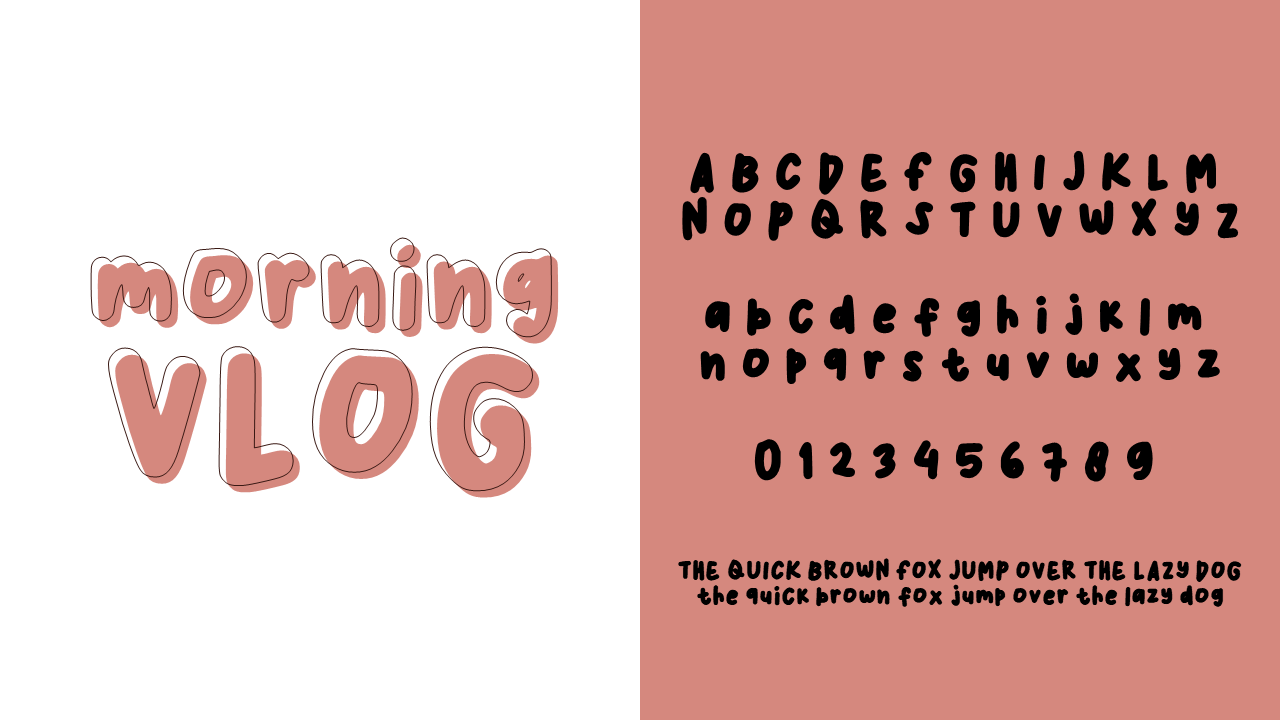
Hylie Font
Hylie Display FontHylie Font preview image 2
Hylie Display Font
This is a cute font will suit any cute design and element. Perfect for branding projects, Logo design, Clothing Branding, product packaging, magazine headers, or simply as a stylish text overlay to any background image.